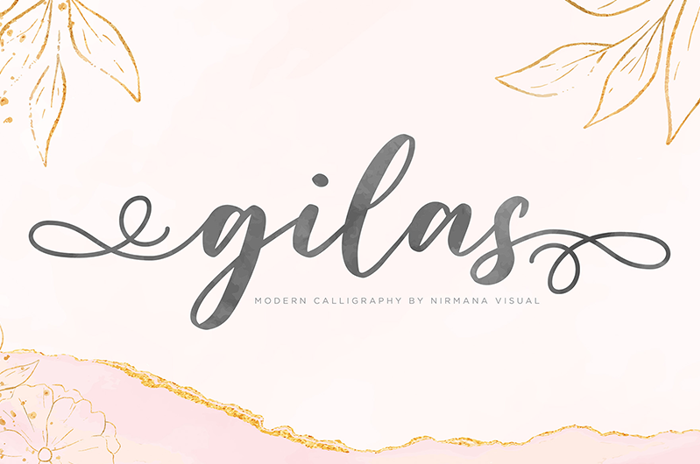
Gilas Font
Gelathy is a Beautiful script font carefully created with a touch of Romantic.
This is a beautiful combination of timeless elegance and authentic calligraphy,
It has lowercase beginning and ending swashes.